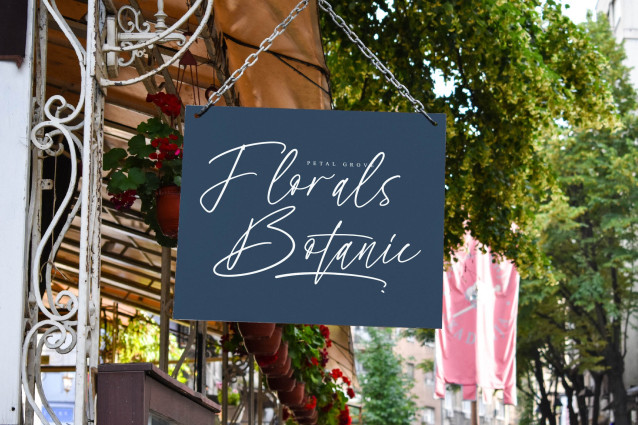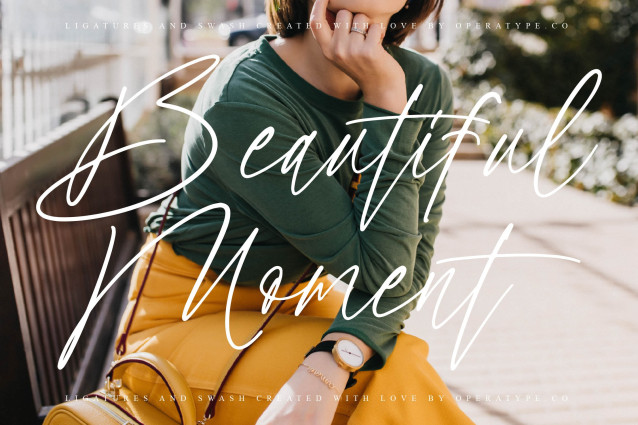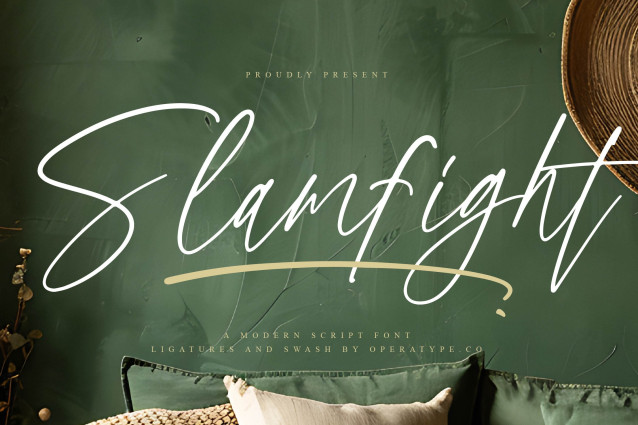
Slamfight Font
**Slamfight** is a bold and expressive handwritten script font designed to capture movement, confidence, and creativity. Featuring long sweeping strokes, stylish ligatures, and elegant signature-style letterforms, this typeface creates a strong visual presence while maintaining a refined and sophisticated appearance. Inspired by modern calligraphy and dynamic handwritten artistry, **Slamfight** combines energetic brush movement with smooth flowing connections to deliver typography that feels powerful, authentic, and effortlessly stylish. Its expressive curves and dramatic swashes bring personality and luxury into every composition, making each design appear distinctive and memorable.
Crafted for designers who want their work to stand out, **Slamfight** blends contemporary handwritten aesthetics with premium typography details. The harmonious rhythm between characters creates a natural handwritten flow while preserving excellent readability across both print and digital applications. Whether used for logos, luxury branding, packaging, social media campaigns, fashion labels, editorial layouts, or premium product branding, **Slamfight** delivers a professional handwritten look that instantly elevates visual identity and creative storytelling. Bold yet elegant, this typeface is thoughtfully designed for creatives who seek typography filled with character, movement, and modern sophistication.